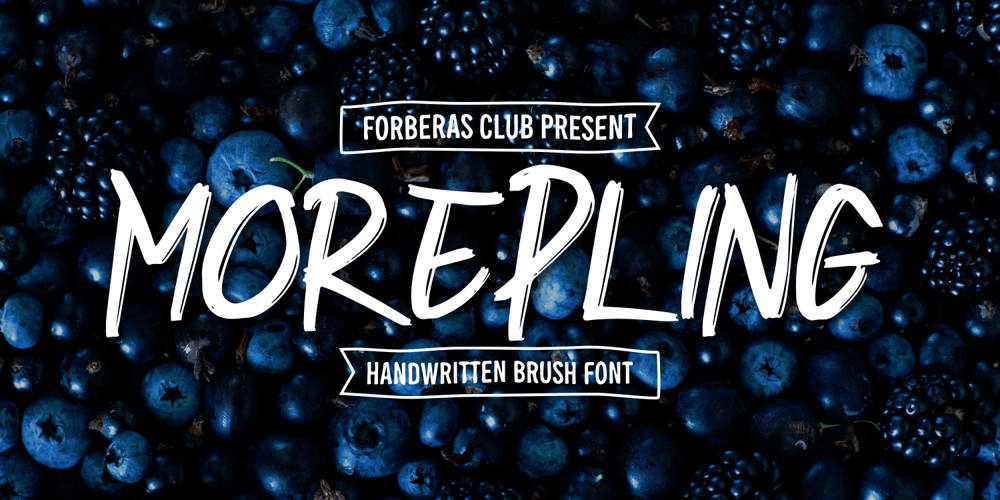
Morepling Font Family was designed by ANGGI HERMAWAN and published by Forberas Club. Morepling contains 1 styles and family package options. This font can use in any media like tees design, poster, banner or movie logo type. Let’s try ! Awesome font be with you !